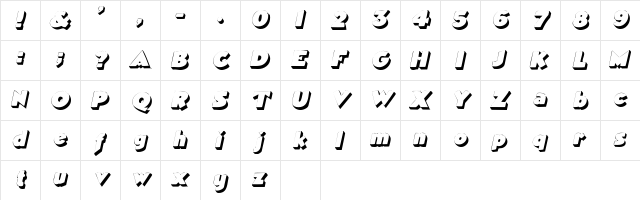
TricorneOutlineSSK Italic
Design Context for TricorneOutlineSSK Typeface
TricorneOutlineSSK is built around its visual character rather than neutral utility — its distinctive forms are designed to make an impression at display sizes. Its italic angle brings a sense of urgency and motion to the letterforms.
Font Pairing: Pair with a clean neutral sans-serif for body copy to let TricorneOutlineSSK's character lead without overwhelming the composition.
Pro Tip: Treat TricorneOutlineSSK as the centrepiece of your typographic hierarchy. One strong heading set in a decorative face can carry an entire layout.